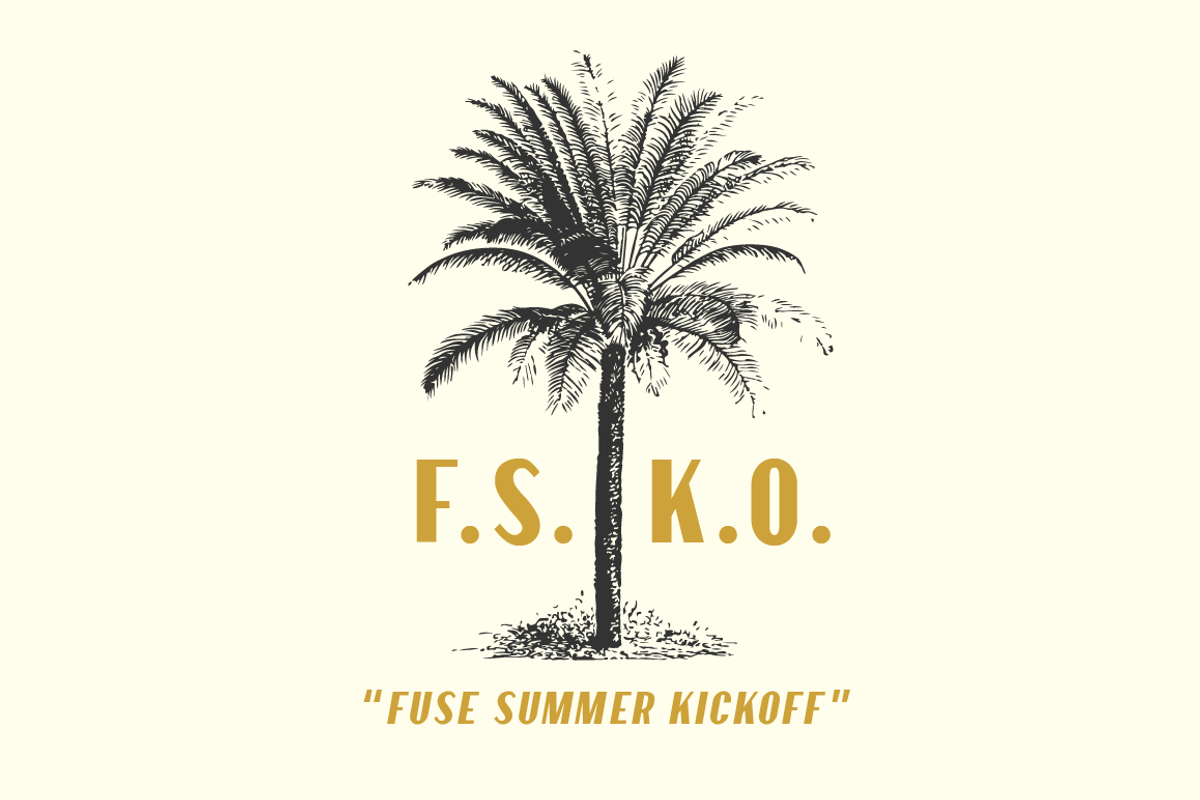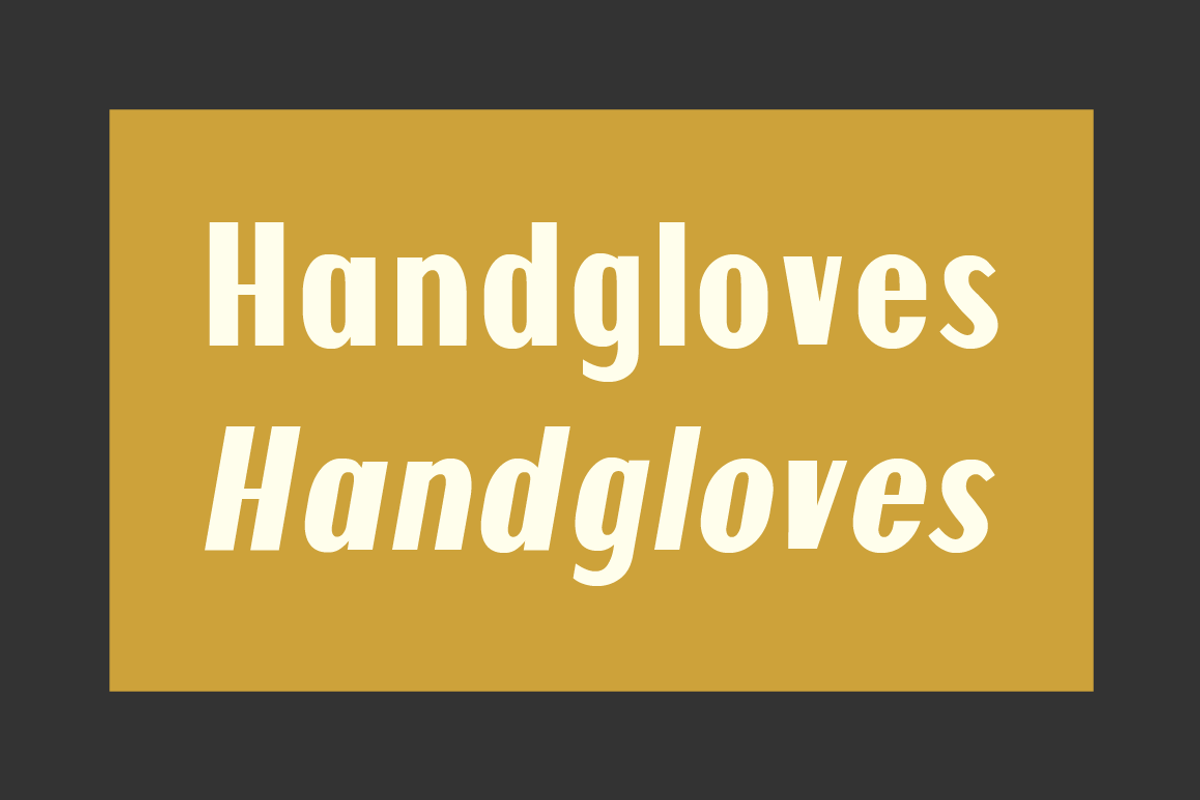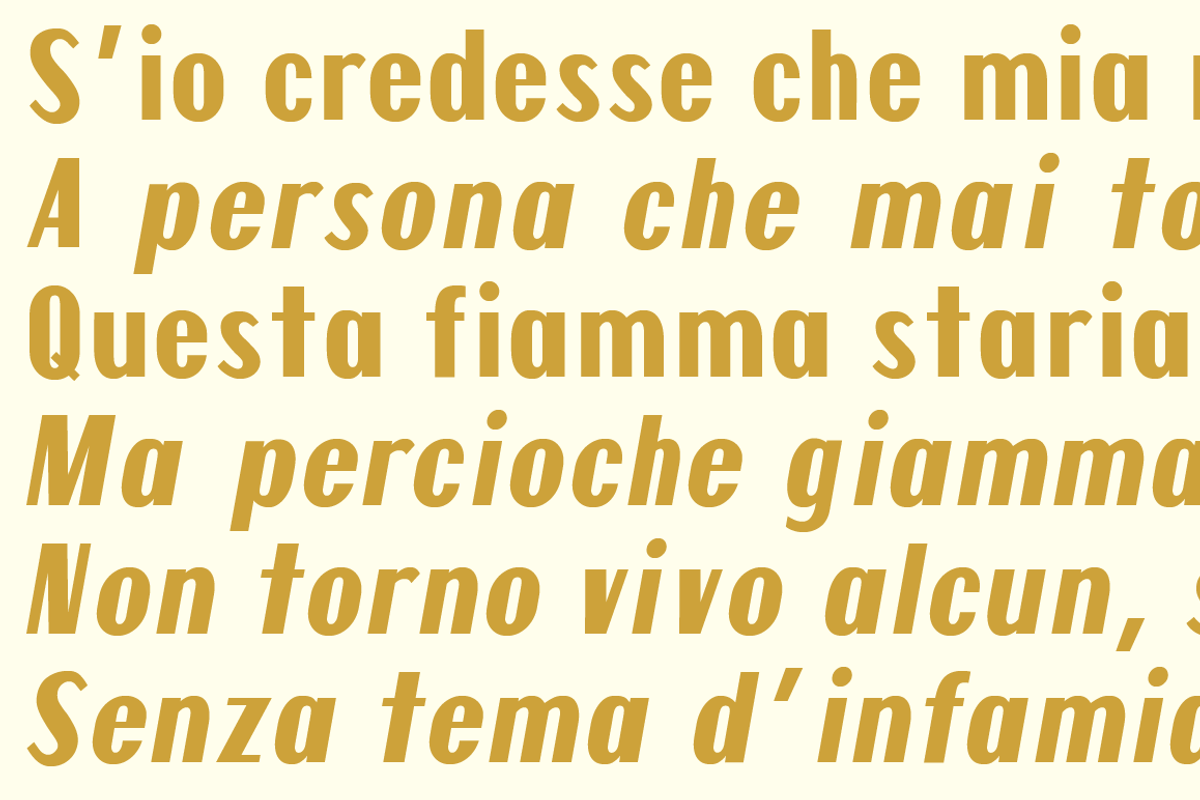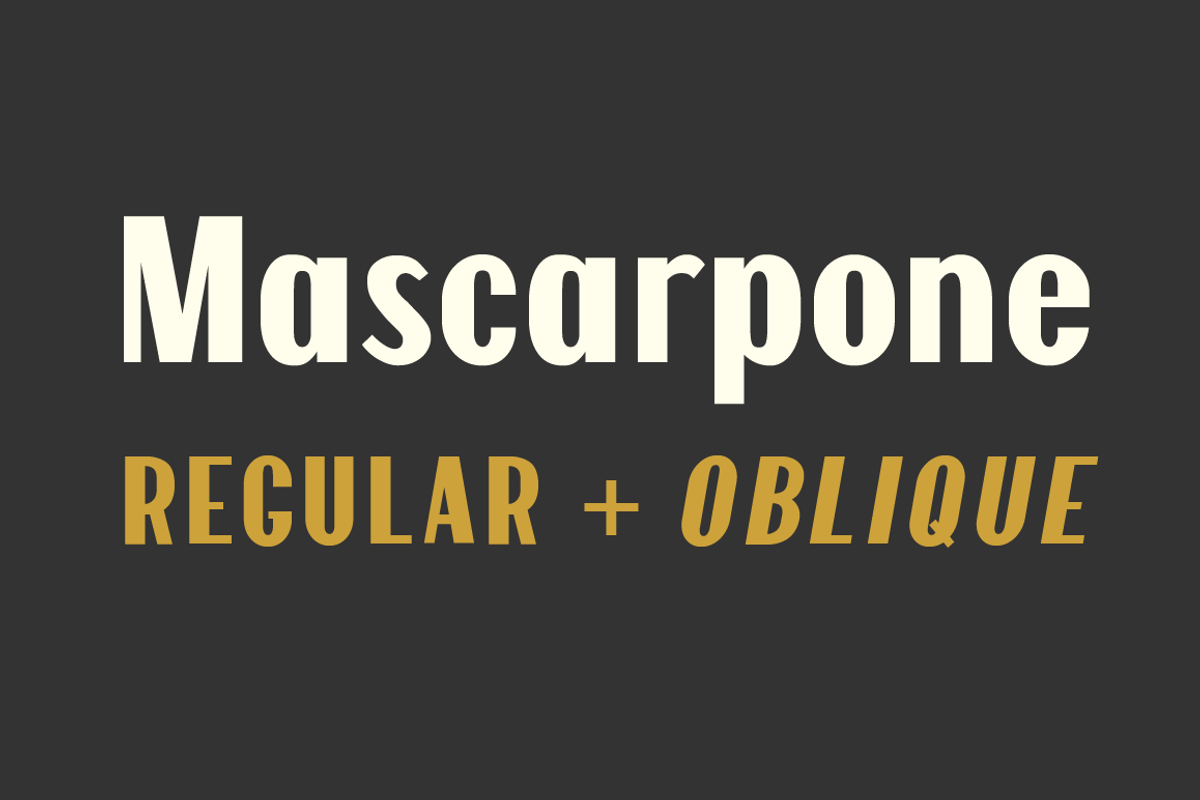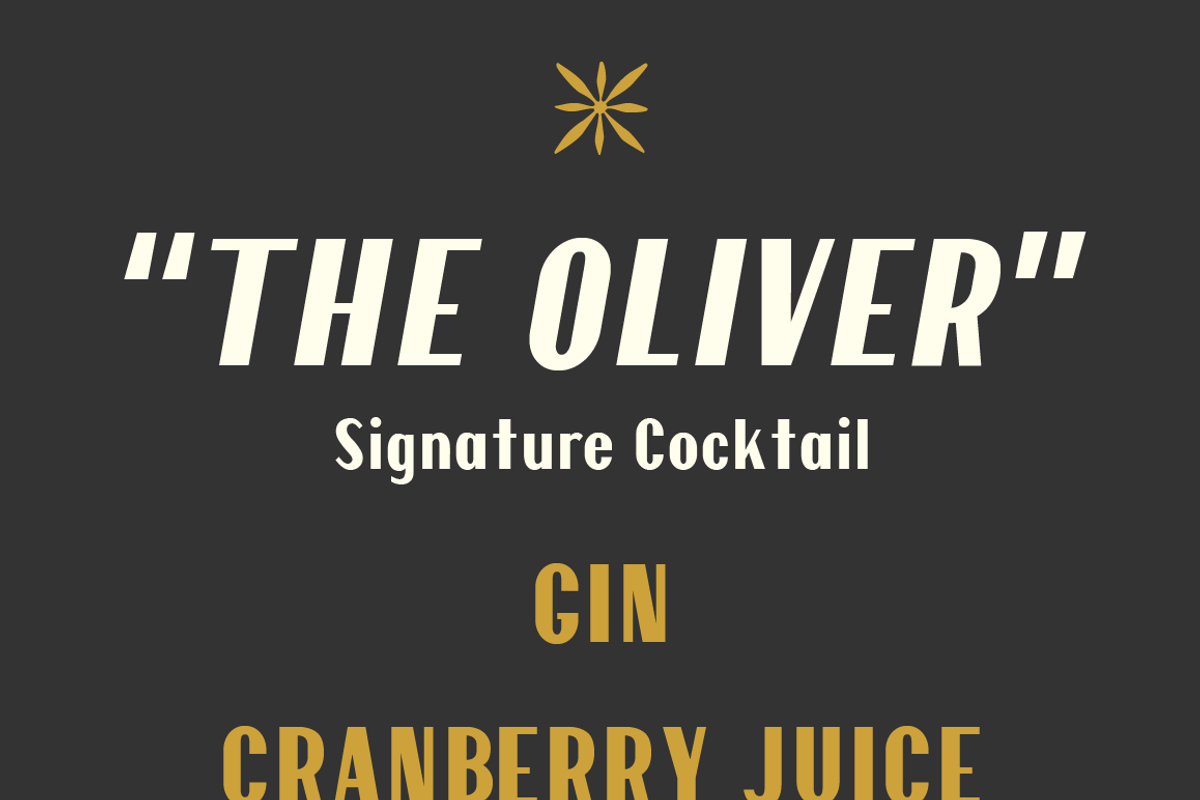
Mascarpone Typeface
Mascarpone is a high-contrast sans serif in the spirit of Italian art deco.
- Multilingual support
Mascarpone Typeface by hudlow fits naturally into Branding, posters, packaging, typography.